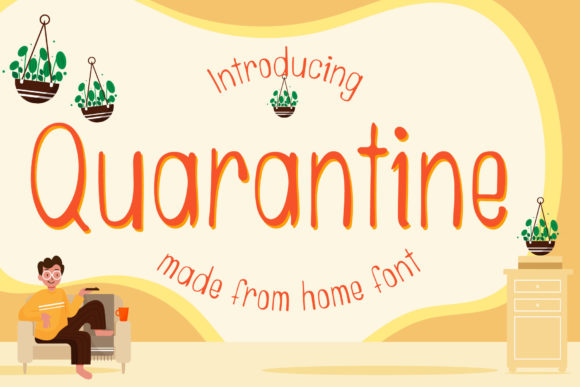
Introducing Quarantine Font, the captivating script that exudes joy, uniqueness, and authenticity. Designed by the creative minds at numnim, this handwritten font is more than just a collection of letters; it's a pathway to transform your creative visions into remarkable realities.
With its playful and distinctive style, Quarantine Font adds a touch of whimsy to any project. Its meticulously crafted characters dance across the page, evoking a sense of playfulness and lightheartedness. Whether you're crafting an enchanting story, expressing your artistic side, or designing a captivating logo, Quarantine Font is your trusty companion, ready to elevate your work to new heights.
But Quarantine Font is more than just aesthetically pleasing; it's a powerful tool for conveying emotions and messages with undeniable clarity. Its carefully chosen glyphs and elegant curves create a visual symphony that captivates the reader's attention, ensuring that your words resonate with impact.
Embrace the beauty of the unexpected and let Quarantine Font guide you on a creative journey like no other. Its versatility knows no bounds, effortlessly adapting to a myriad of projects, from research papers and heartfelt letters to vibrant social media posts and eye-catching marketing materials.
So, embark on this creative adventure with Quarantine Font and unleash the boundless potential of your imagination. Let its playful spirit ignite your creativity and watch as your words and designs transform into masterpieces that leave an unforgettable impression.